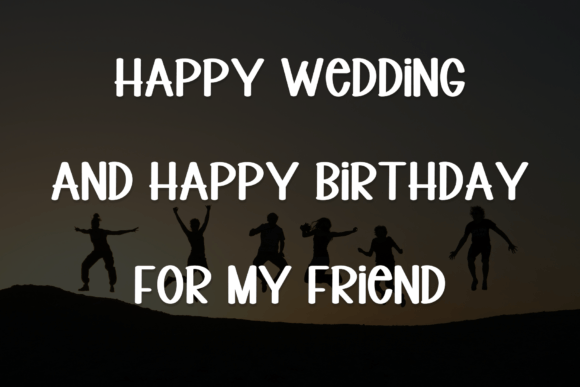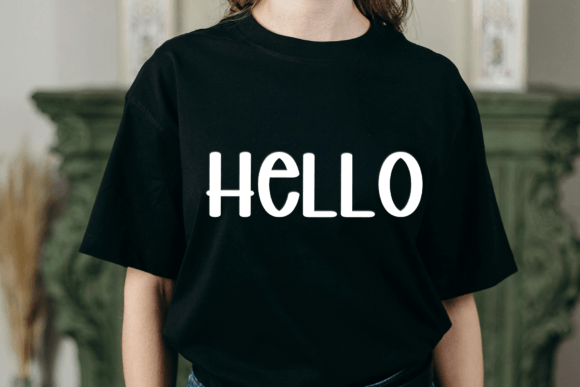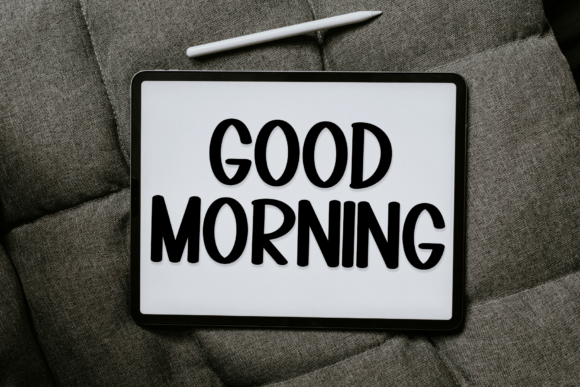
Introduction to Mega Vintage Font
Mega Vintage is a delicate, elegant, and timeless font.
It has beautiful and well-balanced characters and as a result, it matches a wide pool of designs Add it to your most creative ideas and notice how it makes them come alive.